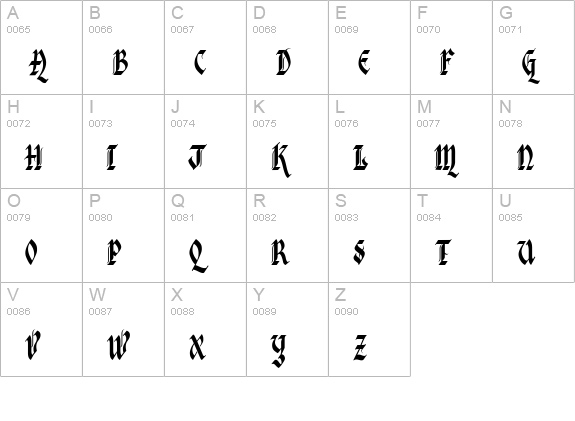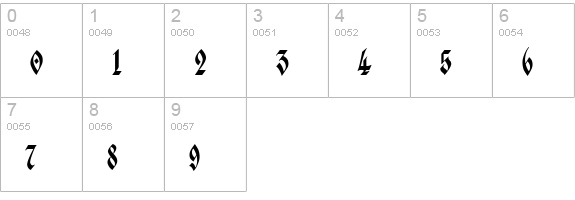
Verona Gothic Font Details
Verona Gothic font is a captivating typeface that effortlessly combines the elegance of Gothic calligraphy with a modern twist. Its intricate and ornate letterforms evoke a sense of mystery and sophistication, making it an ideal choice for projects that require a touch of drama and grandeur. This exquisite font features tall and slender lettering, with sharp edges and delicate curves that create a harmonious balance between strength and grace. The carefully crafted strokes and intricate details give Verona Gothic a unique and timeless appeal, making it a versatile choice for a wide range of design projects. Whether you're designing a logo, creating a striking headline, or crafting a stylish invitation, Verona Gothic font is sure to make a lasting impression. Its bold and distinctive appearance will grab attention and add a touch of elegance to any design. What makes Verona Gothic font even more appealing is that it is available for free. That's right, you can freely download this stunning font at FontsMarket.com. This means that you can enhance your designs with the captivating beauty of Verona Gothic without breaking the bank. So why wait? Discover the captivating allure of Verona Gothic font and elevate your designs to new heights. Download it for free at FontsMarket.com and unlock the power of this exquisite typeface today.